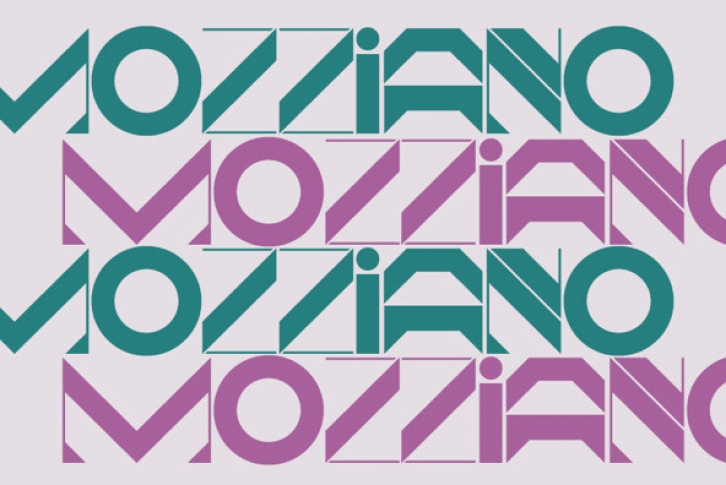
Created in 2010 by Olivier Gourvat, Mozziano is an elegant cross between geometric and round shapes. Its post-retro style opposes also fine and thick lines. This font can be used for very short texts however it is particularly effective for headlines in larger point sizes so that its details are emphasized. Mozziano best used in experimental designs. Mozziano contain an extensive character set that includes support for Central and Eastern European languages.